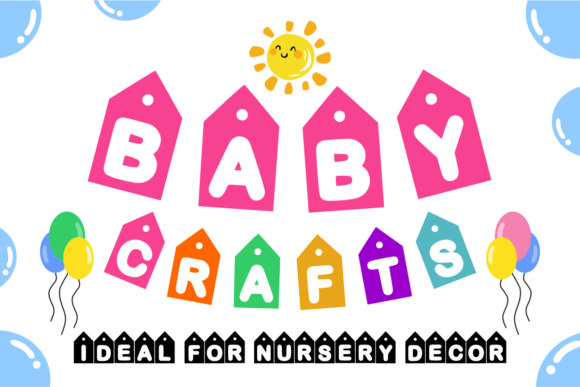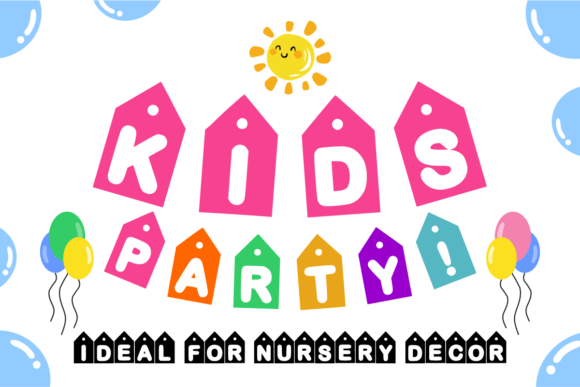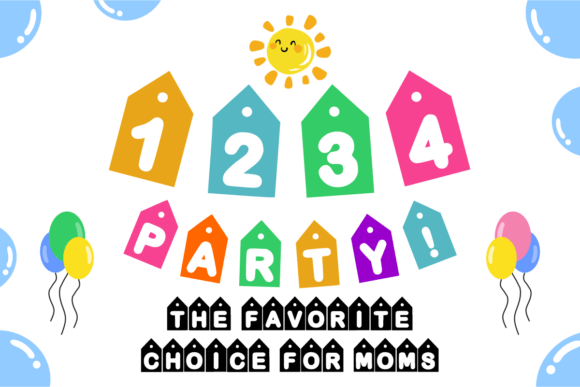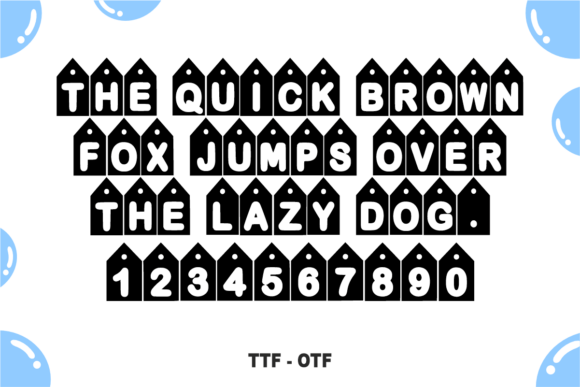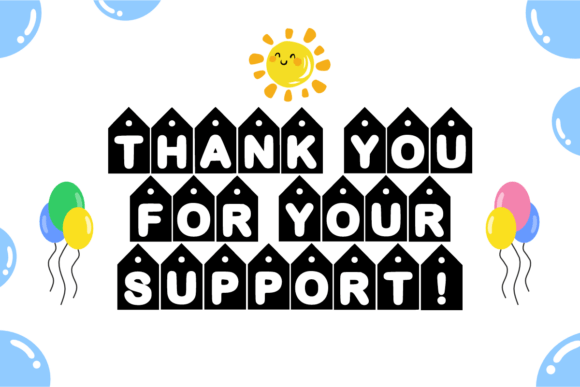
Unwrap the Fun: Get Ready to Celebrate with Birthday Crafts Font
You know that feeling when you’re surrounded by colorful papers, scissors, and glue, and the excitement of creating something special takes over? That’s what happens when you’re planning a birthday party, and you want to make it truly unforgettable. For designers like you, finding the perfect font to match the festive atmosphere can be a challenge. That’s where Birthday Crafts Font comes in – a playful display font designed specifically to add a personal touch to your party projects.
Birthday Crafts Font is more than just a pretty face; it’s a valuable tool for designers who want to create unique and memorable birthday experiences. Each character is uniquely housed within a cute “gift tag” shape, making it perfect for creating banners, party favors, and holiday decorations. Whether you’re a seasoned pro or just starting out, this font is sure to inspire your creativity and help you bring your party ideas to life.
- Unique Characteristics: Hand-drawn, whimsical, and playful design; perfect for birthday invitations, party decorations, and other celebratory materials
Birthday Crafts Font Review
I’ve had the chance to work with the Birthday Crafts Font, and I must say it’s a delightful addition to any design project. Here are some things that work well:
- ✨ Unique and playful style: The font is perfect for adding a whimsical touch to birthday invitations, party decorations, or other celebratory designs.
- ✨ Great for DIY projects: The font is ideal for DIY enthusiasts who want to create their own birthday crafts, such as paper cutouts, stickers, or gift tags.
- ⚠️ Limited language support: The font only supports Latin characters, which may not be suitable for designs that require non-Latin languages.
- ⚠️ Not ideal for formal designs: While the font is perfect for playful designs, it may not be the best choice for formal or professional projects.
Overall, I think the Birthday Crafts Font is a great addition to any designer’s toolkit. It’s perfect for adding a touch of whimsy to birthday designs, but may not be the best choice for more formal projects. With its unique style and versatility, I’d definitely recommend it for DIY enthusiasts and designers who want to create playful birthday crafts.
The Birthday Crafts Font is ideal for:
– Birthday invitations and party decorations
– Custom gift tags and labels
– Party hats and balloons
– Social media posts and event promotions
For the best results, use the Birthday Crafts Font in conjunction with other creative elements, such as illustrations and graphics. Experiment with different font sizes, colors, and styles to create a unique and eye-catching design.